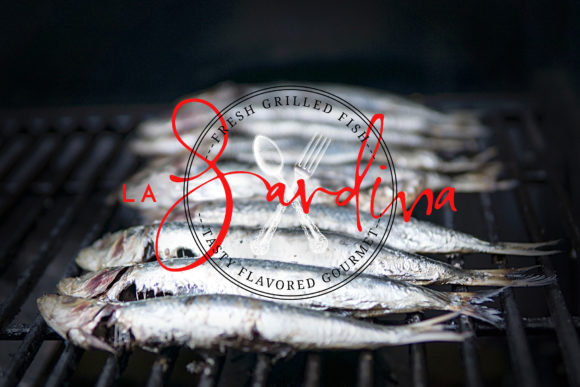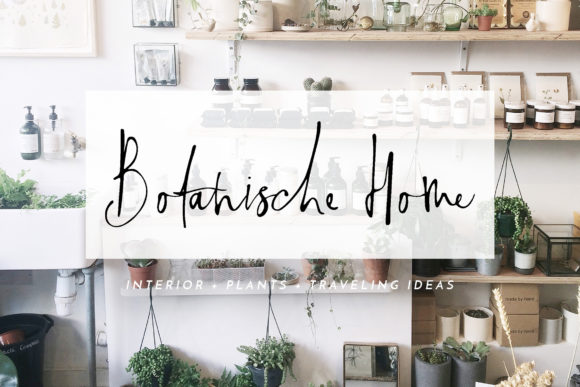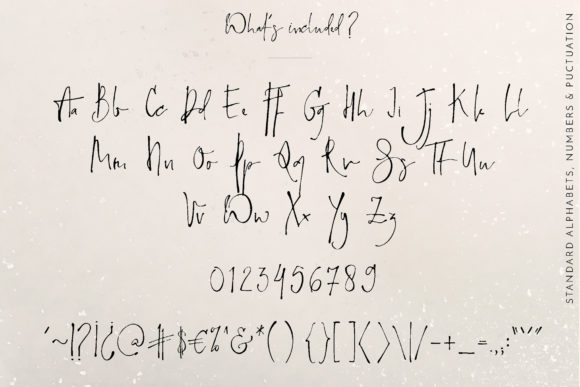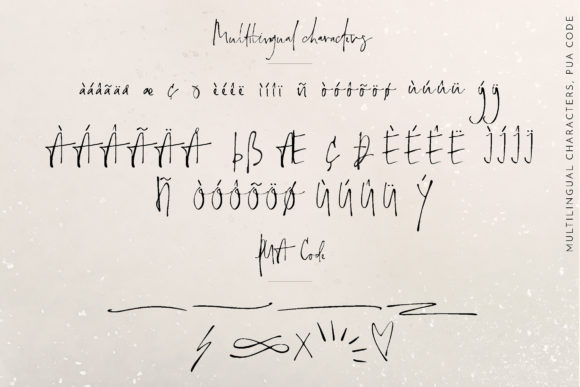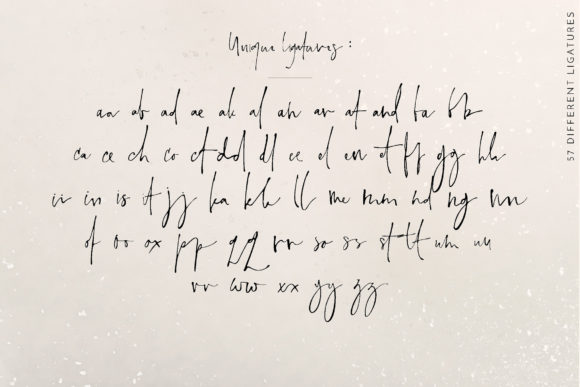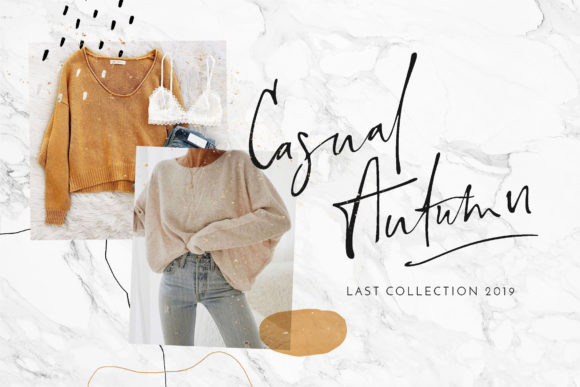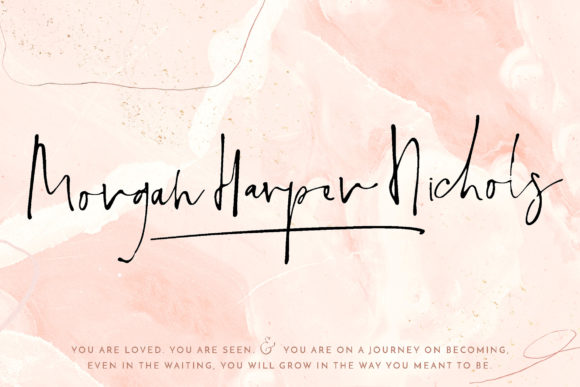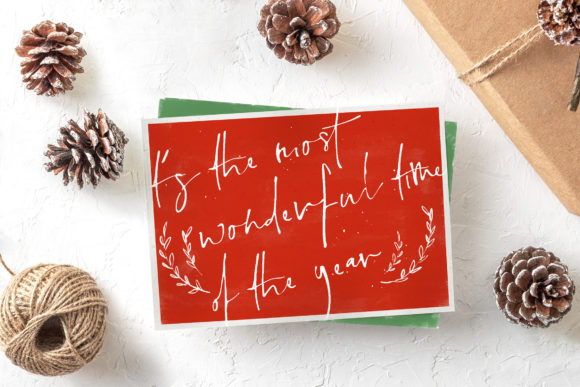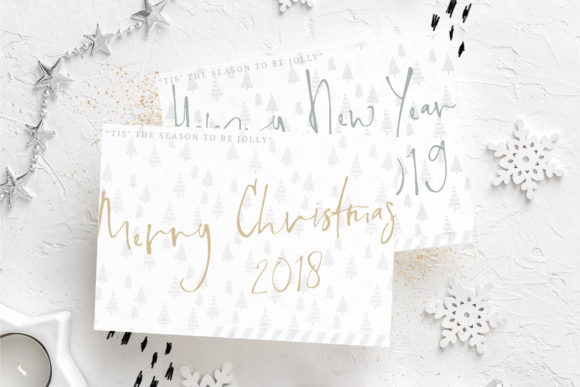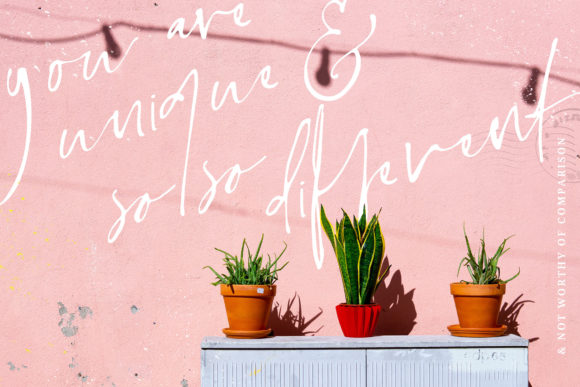
Lenka Morris Font
The Lenka Morris is an amazing signature script font. It has a very natural handwritten style which can be used to give your designs a personal feel.